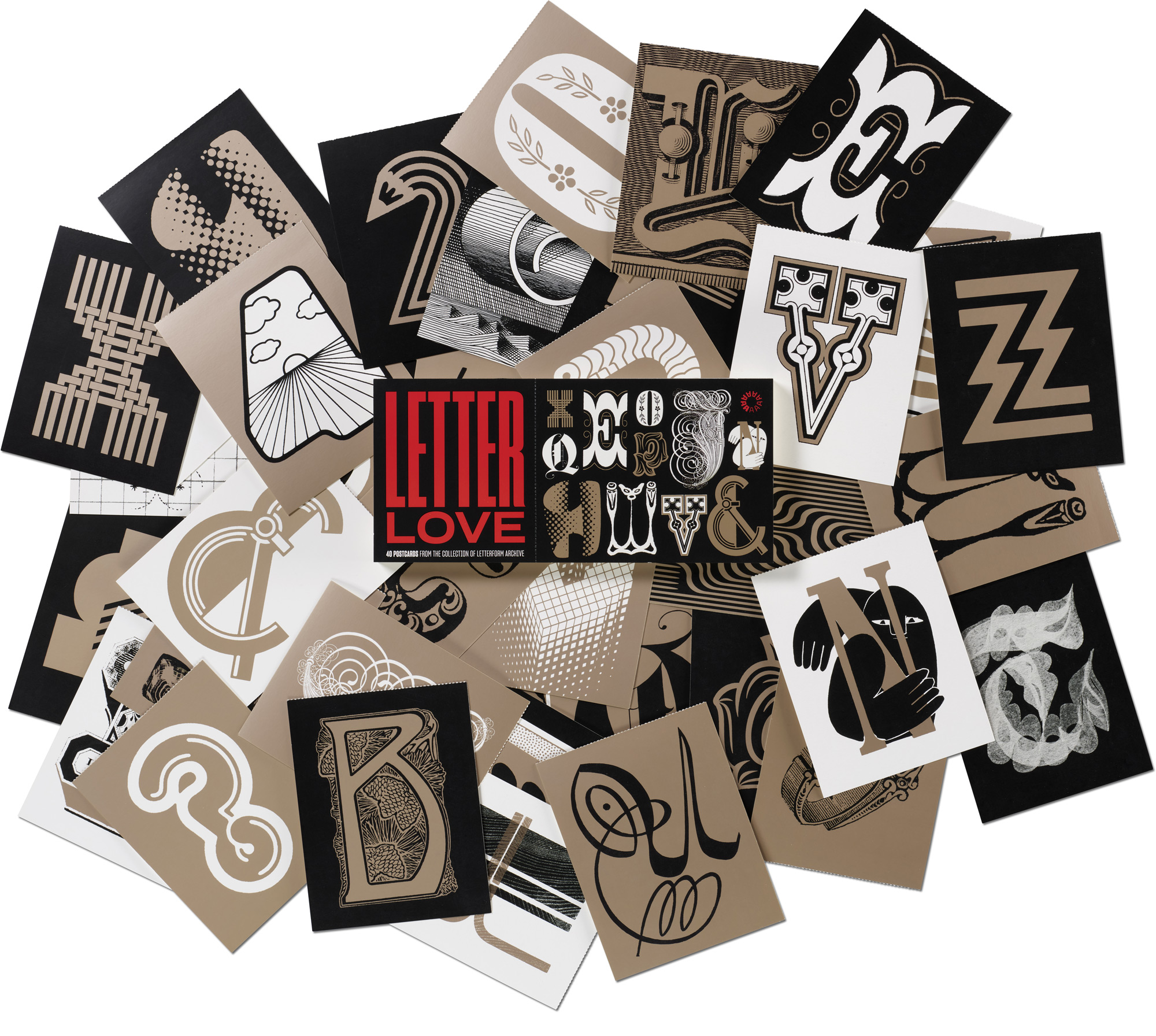
Share the art of the alphabet with 40 unique pull-out postcards featuring favorites by designers including Saul Bass, Seymour Chwast, Hansje van Halem, and Takenobu Igarashi
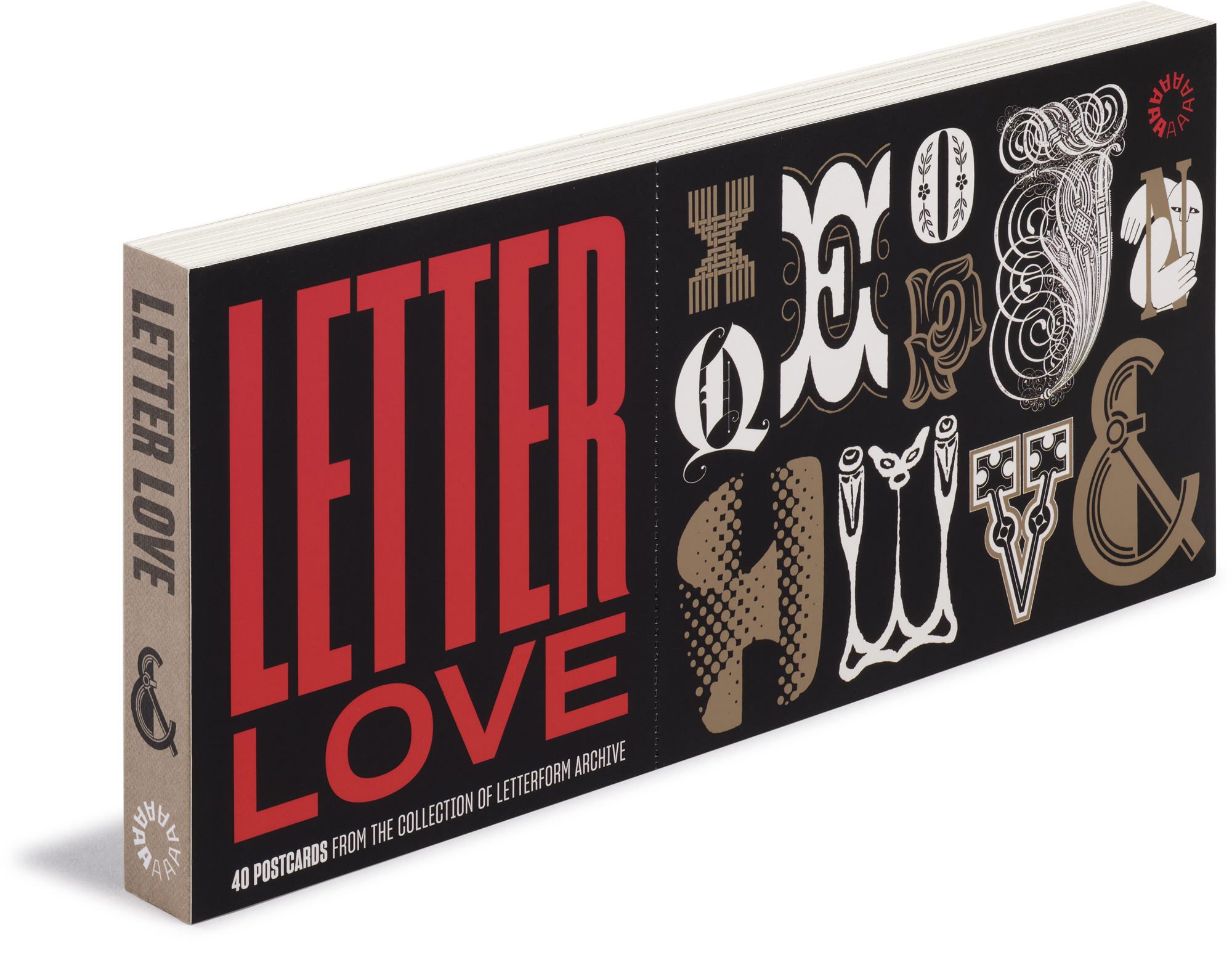
With a complete alphabet of scene-stealing letters sourced from Letterform Archive’s vast and varied collection, plus ten numerals and four punctuation marks, Letter Love celebrates the many ways letterforms can surprise and enchant. Printed with metallic ink and presented in a unique perforated booklet, the postcards tear off to reveal an illustrated catalog that shares reproductions and details about the art. Both delightful and practical, Letter Love makes an ideal gift for design and lettering enthusiasts.
Artists and designers include: Vincent de Boer, Armin Haab, Peter Malutzki, Hans Donner, Sylvia Trenker, Julien Priez, Angel de Cora, Tauba Auerbach, Maurice Dufrène, Tezzo Suzuki, Kuwayama Yasaburo, Milton Glaser, Paul Rand, Tom Carnase, James Edmondson, Ross F. George, Roger Excoffon.